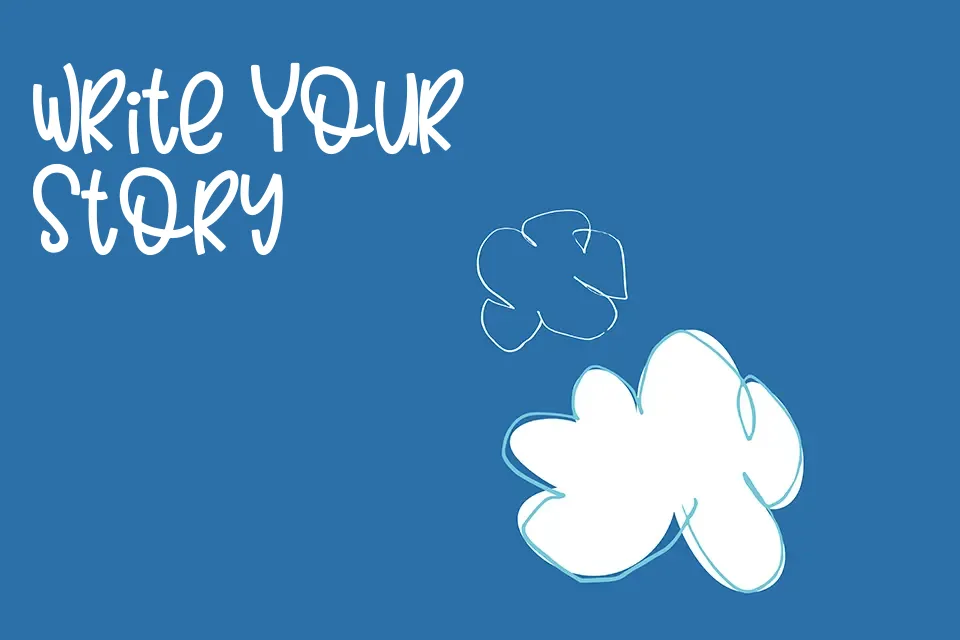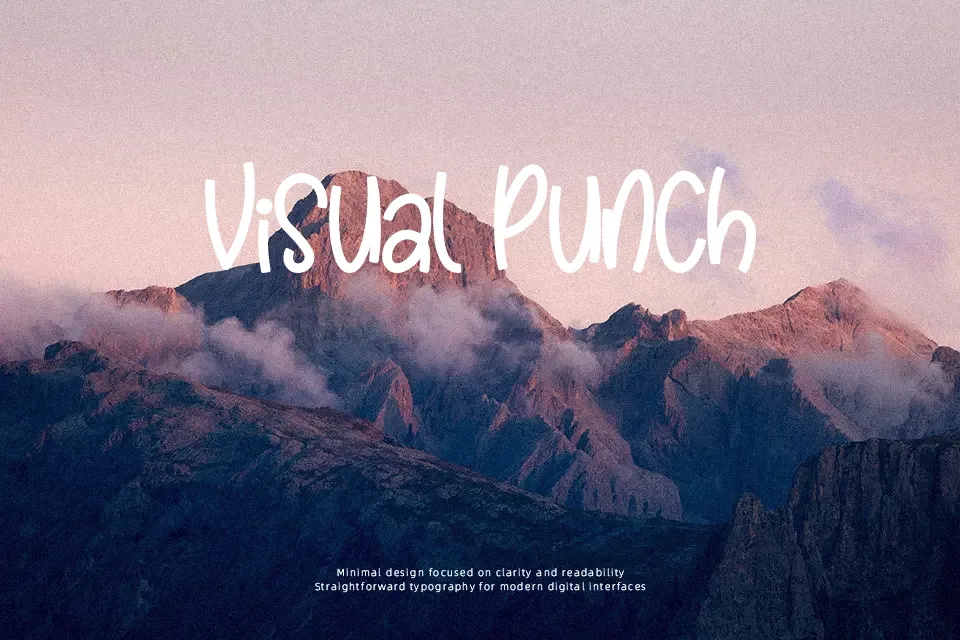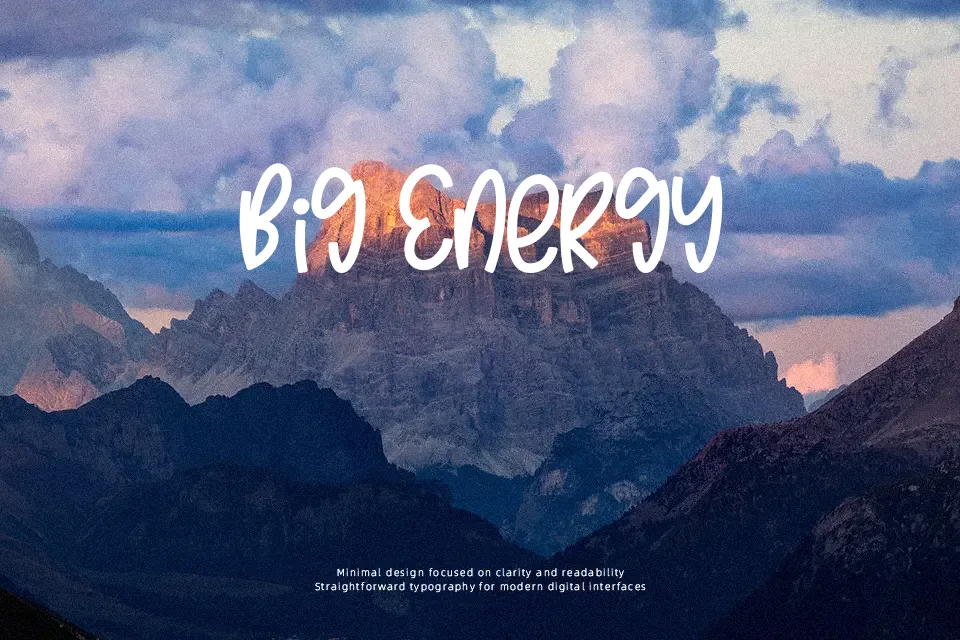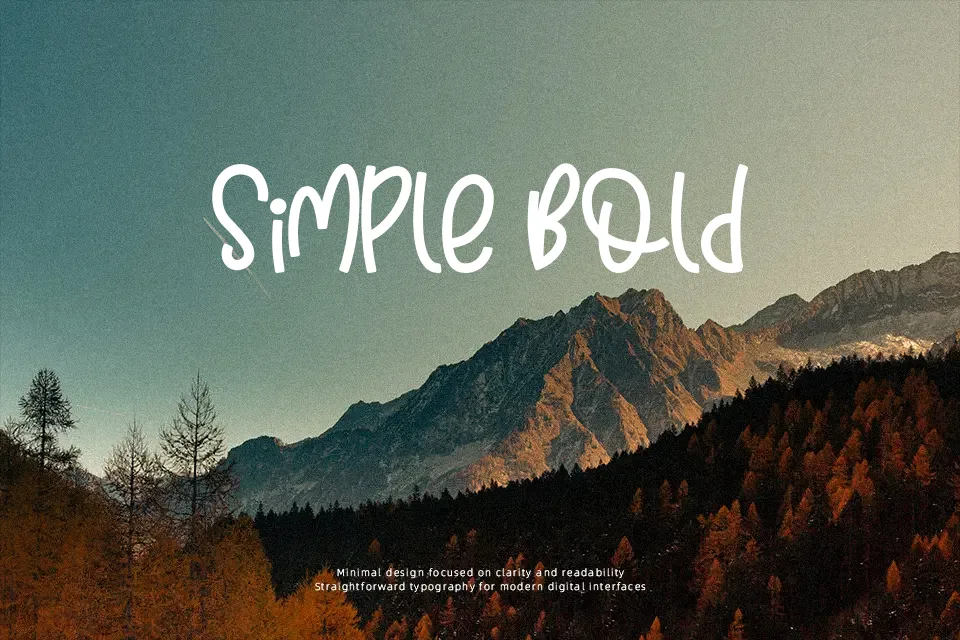
Tomcat Likely Font
Tomcat Likely Font features an informal handwritten structure defined by gentle curves, consistent stroke weights, and softly rounded terminals. The letterforms exhibit relaxed proportions with a slightly raised x-height, giving the overall design a buoyant, approachable visual rhythm. Relatively open character spacing preserves distinct glyph separation, allowing the typeface to maintain solid legibility across medium display sizes. These cheerful visual qualities make the font well-suited for illustrated book covers, playful sticker labels, and casual social media graphics. However, the organic variations and soft forms become less effective in dense editorial compositions, where extended reading can feel cluttered.
Best For: children’s book covers, greeting card headlines, playful product packaging, informal event posters
Not Ideal For: long paragraph text, corporate financial reports, dense technical manuals, small interface labels
Perfect for headline, kids, and packaging, with a creative and cartoon style.